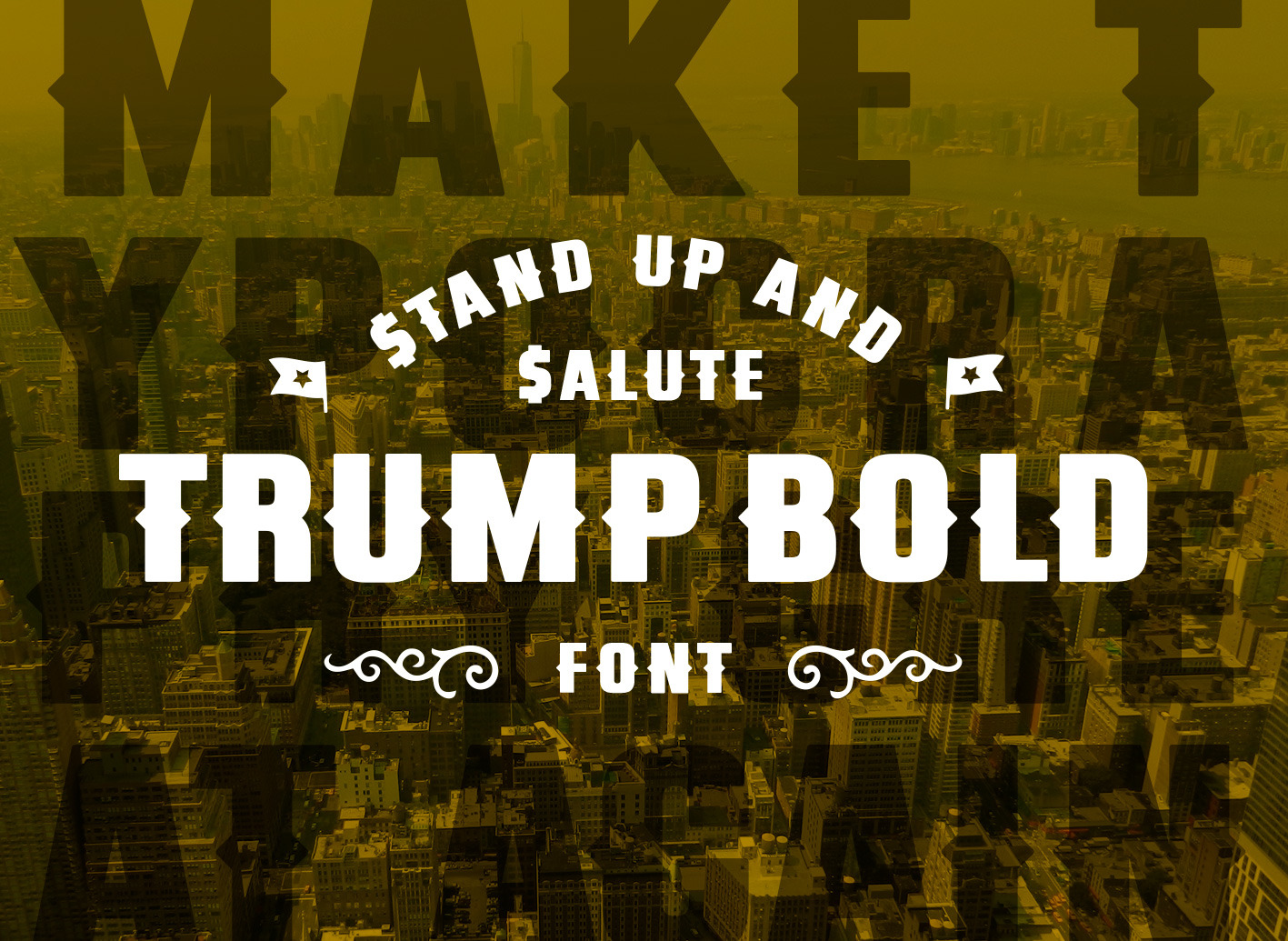
Trump Bold Font
Trump Bold Typeface
Introducing a new display font by Dave Ansett. Inspired by The Greatest Donald of our time (with apologies to Sutherland & Duck). Trump Bold is designed in his image; Bold and Distinctive. Trump Bold works well alone and is kin-of a big deal!! So choose Trump Bold for your next brand or advertising project and Make Typography Great Again!!!
Capitals (of course) Numerals Symbols and Punctuation Extra Trump Characters 12 Trumpism extras
Trump Bold Extras:
Twelve of the most memorable Trump quotes of all time - created as unique typographic designs with as many uses as you can possibly imagine. File formats in .ai and pdf.